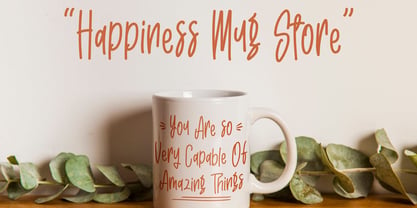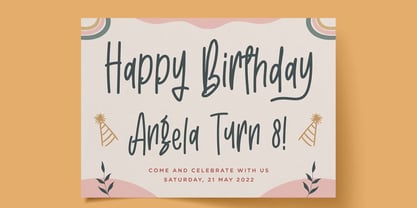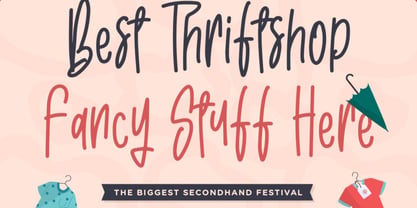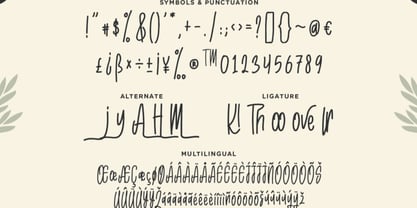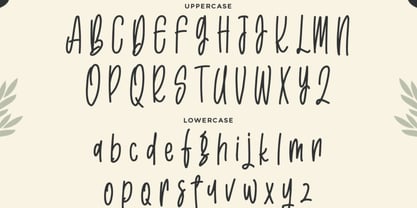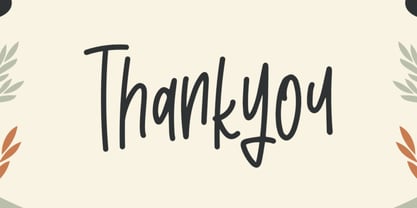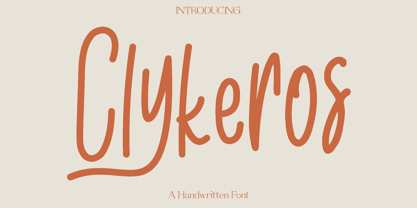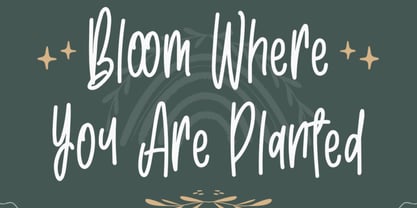
Clykeros
by Only Fonts
The Clykeros Font Family was designed by Olivia Love and published by Only Fonts. Clykeros contains 1 styles. More about this family
Clykeros – Handcrafted Artistic Handwriting Font Clykeros is a beautifully handcrafted handwritten font designed to infuse warmth, personality, and artistic flair into your creative projects. Inspired by natural handwriting and organic pen strokes, each character flows with elegance and authenticity, making your designs feel personal, heartfelt, and unique. The fluid and expressive forms convey a sense of movement and charm that captivates viewers, adding a genuine, human touch. This font excels in a diverse array of creative applications, from personalized branding and boutique logos to social media graphics, greeting cards, posters, and artistic packaging. Its versatility ensures that every word communicates emotion while maintaining legibility and style. Whether used for expressive quotes, wedding invitations, lifestyle branding, or creative marketing materials, Clykeros elevates your work with its handcrafted sophistication. Clykeros is ideal for designers seeking to create intimate and distinctive designs. The font combines elegance and playfulness, featuring alternate characters and ligatures that enhance its natural, handwritten appearance. With Clykeros, every design gains a memorable identity and a handcrafted signature that sets it apart. Clykeros Handwritten Font Features: • Uppercase and lowercase letters • Symbols, punctuation, and numerals • Ligatures and alternate characters for added variety • Multilingual support Celebrate creativity and individuality with Clykeros, allowing your designs to resonate with authentic, handwritten charm.
Designers: Olivia Love
Foundry: Only Fonts